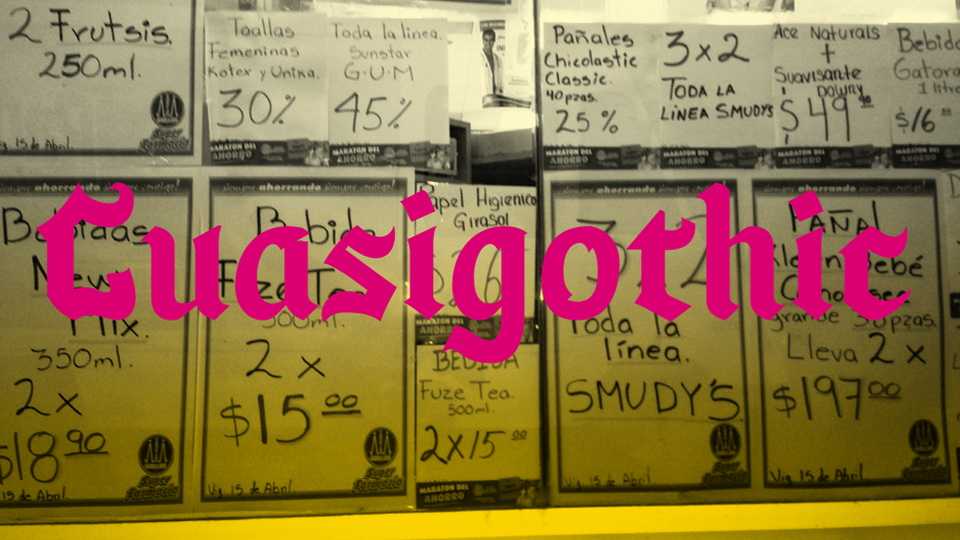
Download Cuasigothic font, a typeface that is just an approximation to the Gothic model and responds to the inspiration of Latin-American signs following the trend of the production of promotional advertisements or street brands.